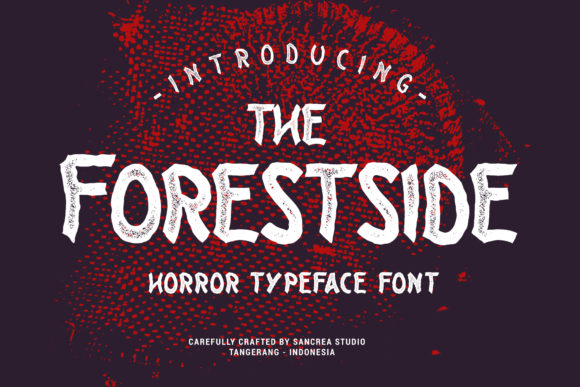
In a world saturated with conventional designs, break free from the mundane with Forest Side Font, the ultimate display font crafted to unleash your creative spirit. Designed by the visionary sancreastd, this font is not just a collection of letters; it's an expression of individuality, a portal to a world where your imagination reigns supreme.
Forest Side Font belongs to the esteemed display font family, a group of fonts renowned for their captivating presence and ability to command attention. Its bold and authentic nature makes it the perfect choice for those seeking to create designs that leave a lasting impression.
Are you a vintage enthusiast, yearning to capture the essence of the past in your designs? Look no further than Forest Side Font. Its unique character exudes a timeless charm, reminiscent of an era where simplicity and authenticity reigned. Picture your designs adorned with Forest Side Font, evoking a sense of nostalgia and elegance that will transport your audience to a simpler time.
But Forest Side Font is not limited to vintage designs. Its versatility knows no bounds, making it an ideal choice for a wide range of creative projects. Whether you're designing posters, logos, social media graphics, or eye-catching headlines, Forest Side Font will elevate your work to new heights of sophistication.
Imagine the possibilities:
- Embark on a typographic journey, crafting posters that speak volumes without uttering a single word. The bold strokes of Forest Side Font will command attention, leaving your audience captivated by your message.
- Create logos that stand the test of time, embodying the essence of your brand with a font that exudes confidence and authenticity. Forest Side Font will ensure that your logo leaves an unforgettable mark in the minds of your customers.
- Unleash your creativity on social media, crafting graphics that break through the noise and make your posts impossible to ignore. Forest Side Font will add a touch of elegance and sophistication to your social media presence, attracting a loyal following that eagerly awaits your next post.
- Design headlines that grab attention and leave your readers yearning for more. The bold and distinctive nature of Forest Side Font will ensure that your headlines captivate your audience, compelling them to delve deeper into your content.